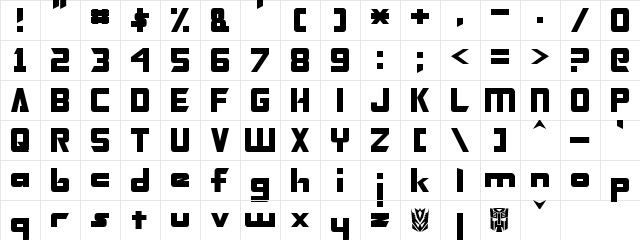
Romeo Juliet Regular
Design Context for Romeo Juliet Typeface
Romeo Juliet is a composed and adaptable typeface that performs quietly and consistently across a wide range of design contexts.
Pro Tip: Use Romeo Juliet in both headline and body roles to test its range before committing to a single application.